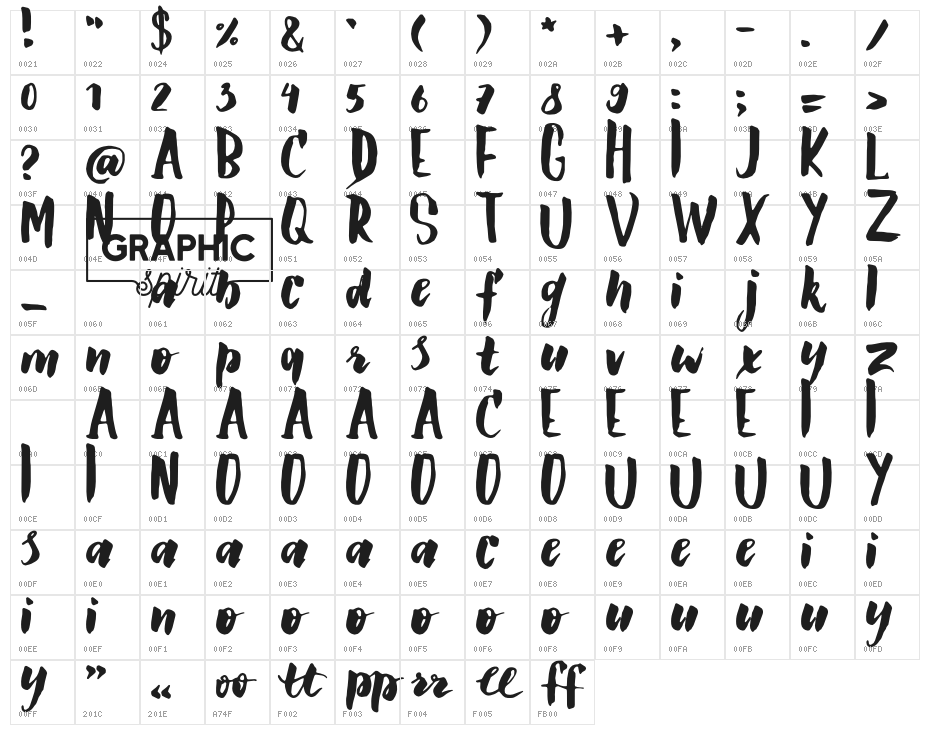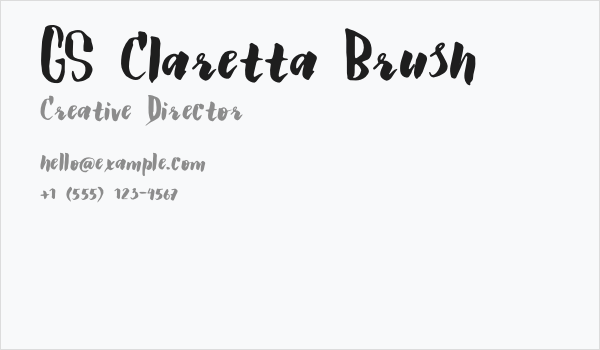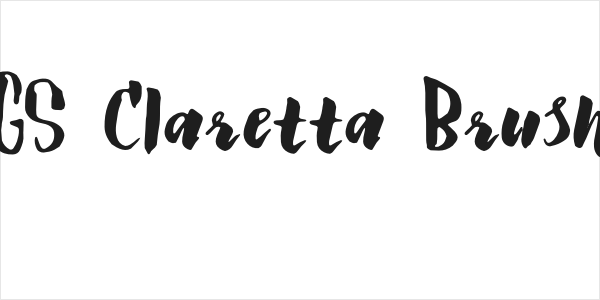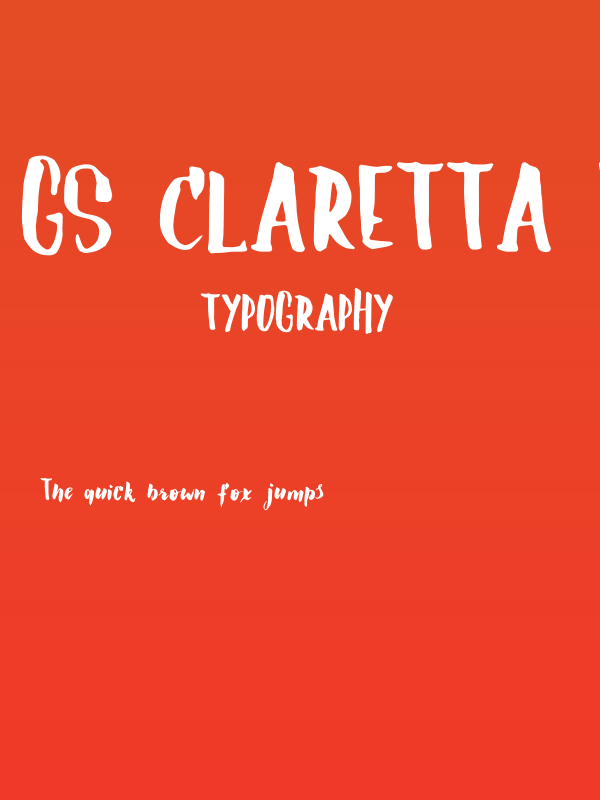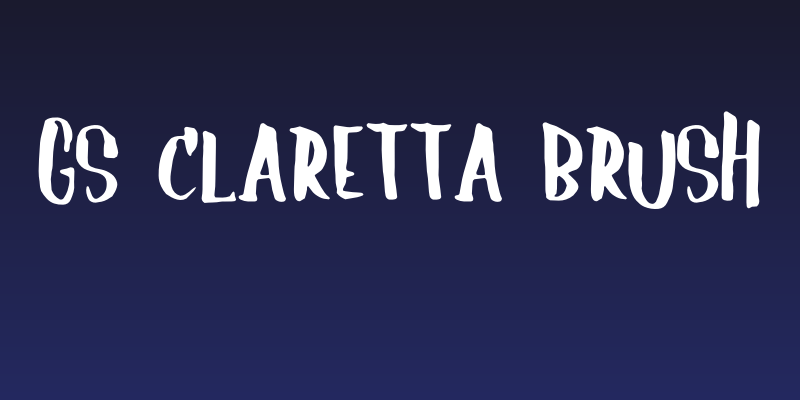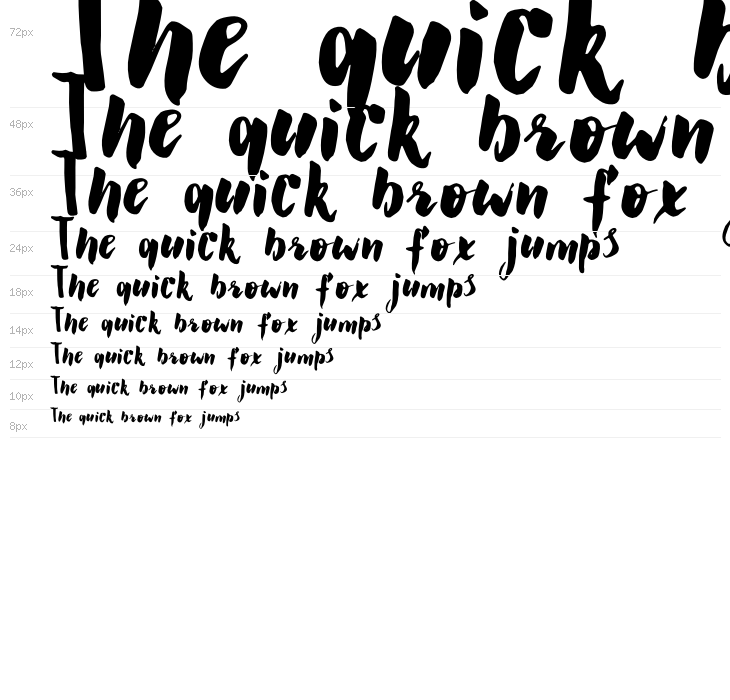
GS Claretta Brush Font
GS Claretta Brush Description
This font exudes a lively and artistic flair, characterized by its bold and expressive brush strokes. Each letter is crafted with a sense of movement and fluidity, giving it a dynamic and energetic appearance. The uppercase letters stand tall and confident, while the lowercase letters maintain a playful and casual style. The numbers are equally bold, ensuring they stand out in any design. Special characters are included, maintaining the same artistic brush style, making this font versatile for various creative projects.
| Proposed Projects | Ideal for creative projects such as posters, invitations, branding, and social media graphics where a bold and artistic touch is desired. |